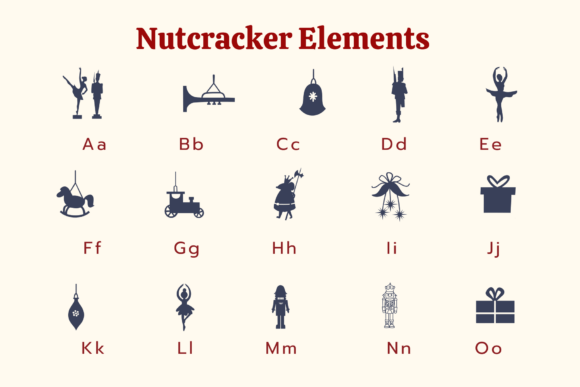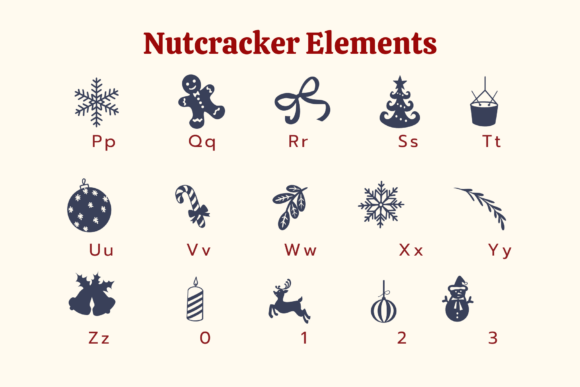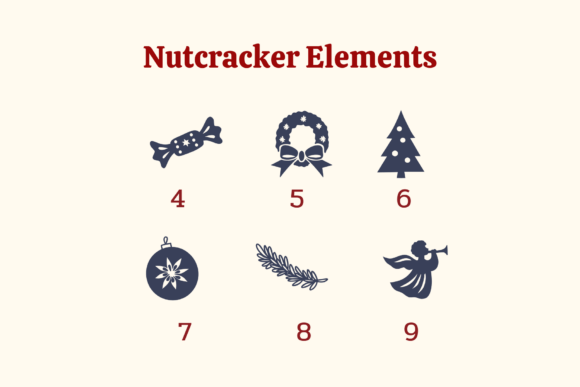
Introduction to Nutcracker Elements Font
Nutcracker Elements is a dingbat font with a festive theme.
This font can enhance your creative projects such as wedding invitations, DIY, crafts, decorations, logos, and many other creative ideas .
Key Features of Nutcracker Elements Font
Why Choose Nutcracker Elements Font?
Nutcracker Elements Font offers exceptional quality and versatility, making it a valuable addition to your design toolkit. Whether you’re creating for personal projects or commercial use, Nutcracker Elements Font delivers professional results.